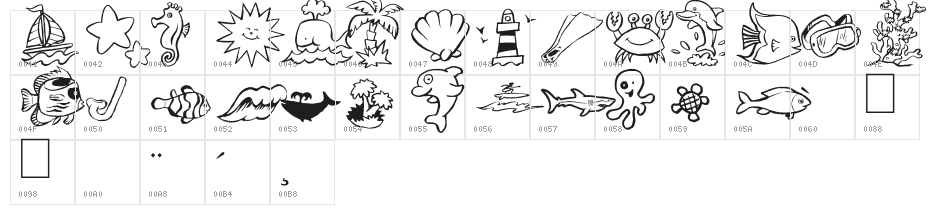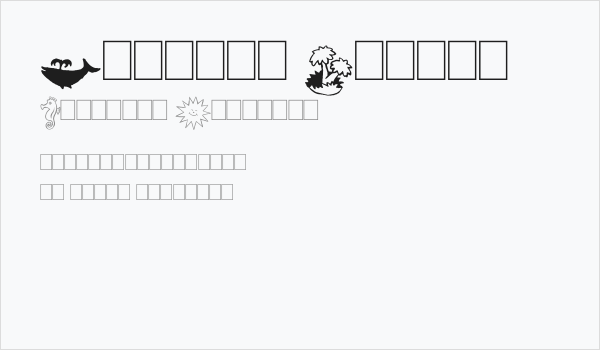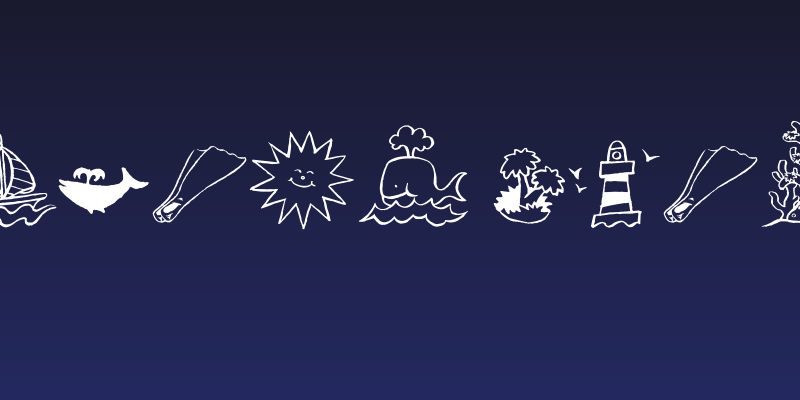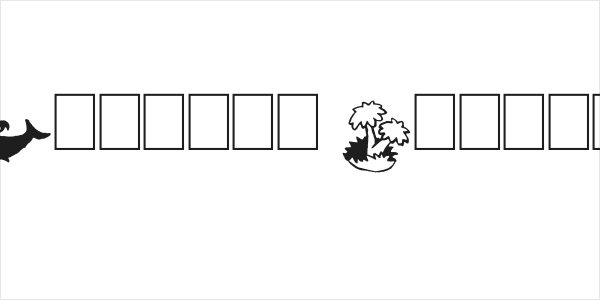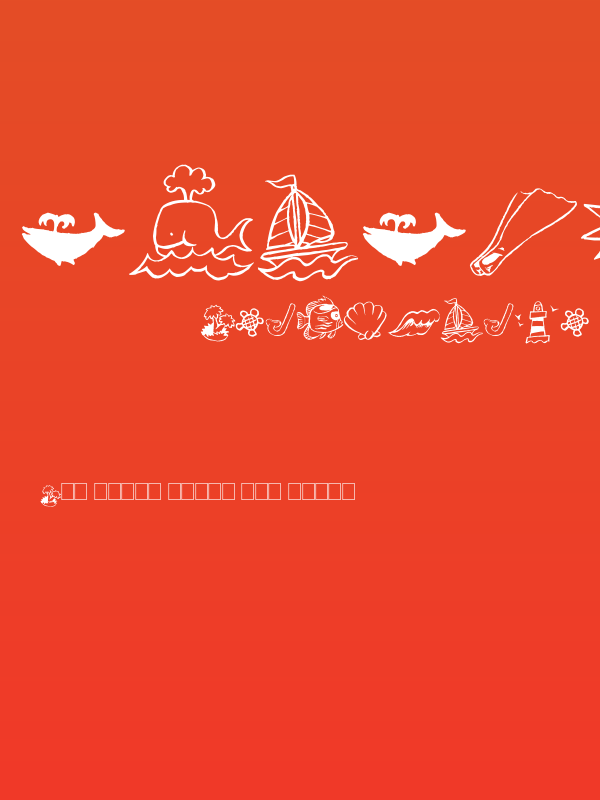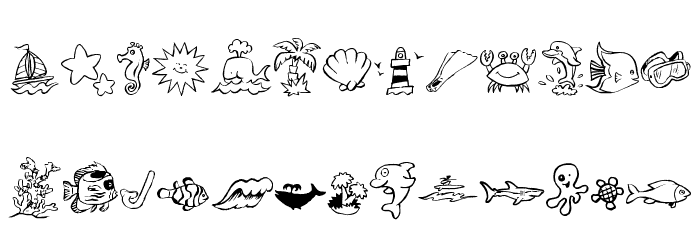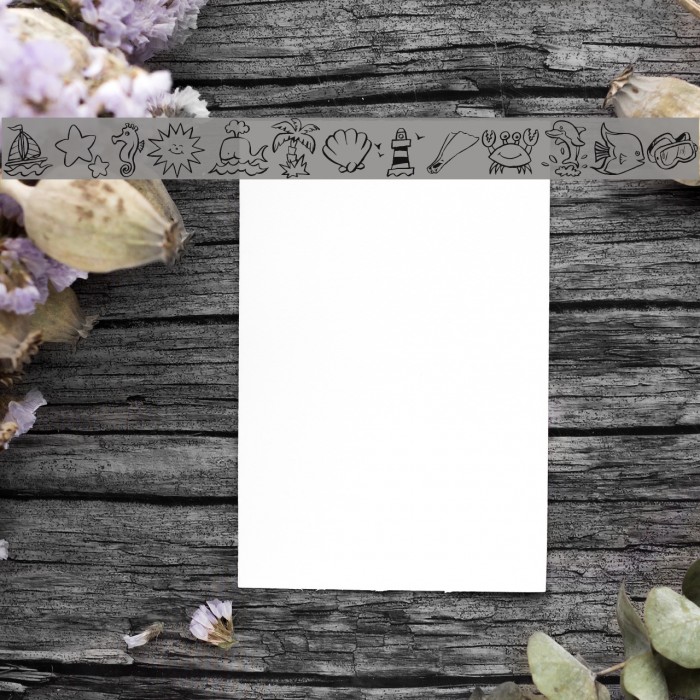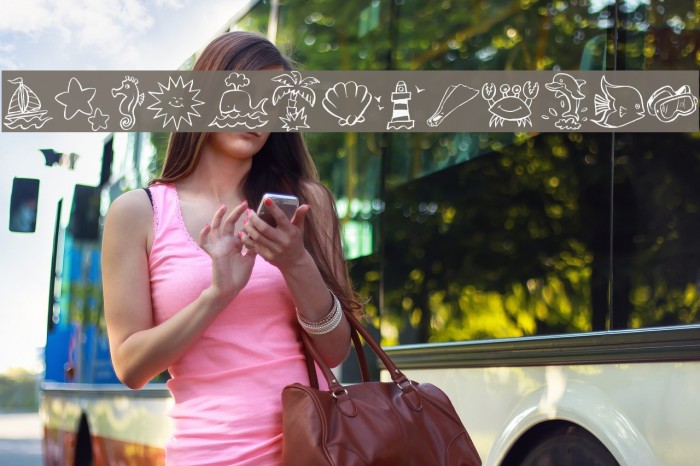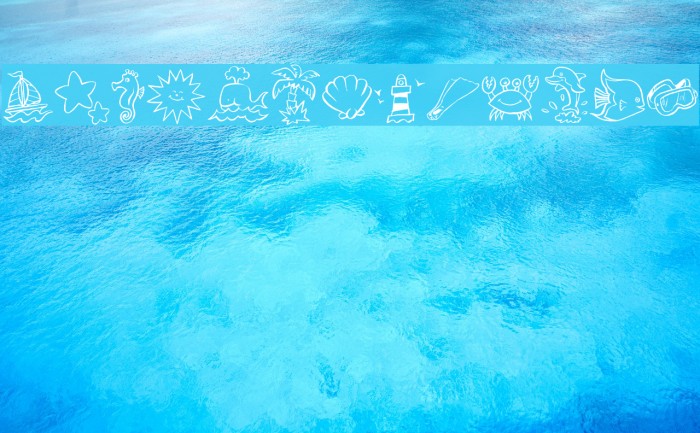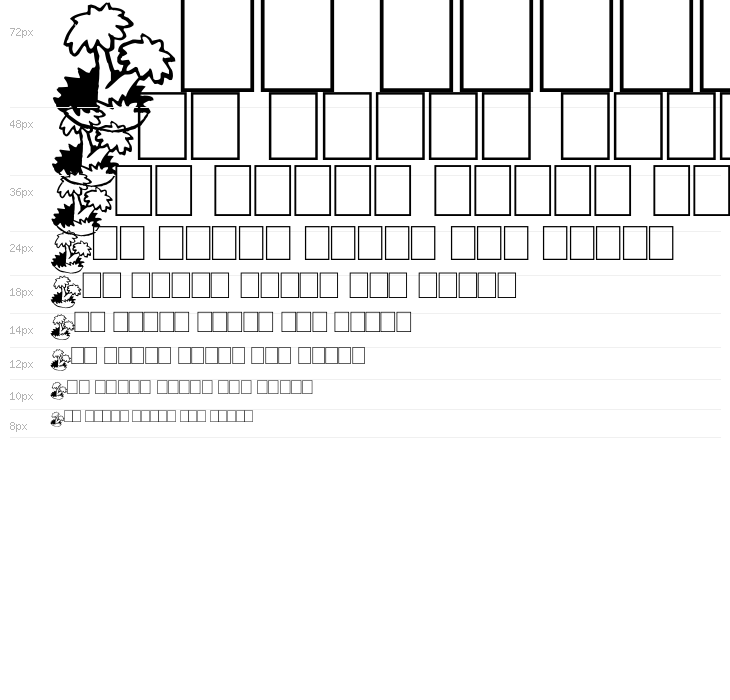
Seaside Things Font
Seaside Things Description
This is a decorative font featuring a variety of seaside-themed illustrations. Each character is represented by a unique drawing, including elements like sailboats, starfish, seahorses, whales, palm trees, lighthouses, and various sea creatures. The style is playful and whimsical, capturing the essence of a beach or ocean setting. The illustrations are detailed and convey a sense of fun and adventure, making it ideal for projects that require a nautical or marine theme. The font does not include traditional alphabetic or numeric characters, focusing solely on these thematic icons.
| Use Case | Logos, Illustrations, Themed Events |
| Proposed Projects | Ideal for children's books, beach-themed party invitations, summer camp flyers, or any project needing a playful, oceanic touch. |